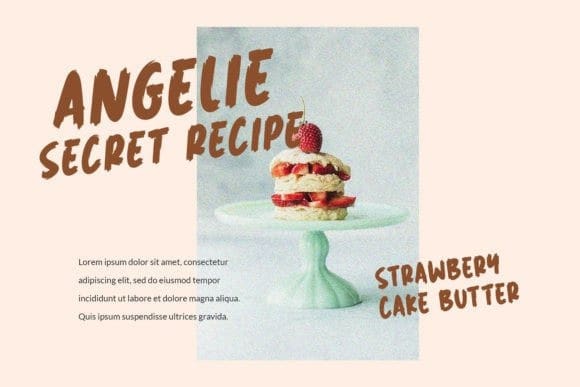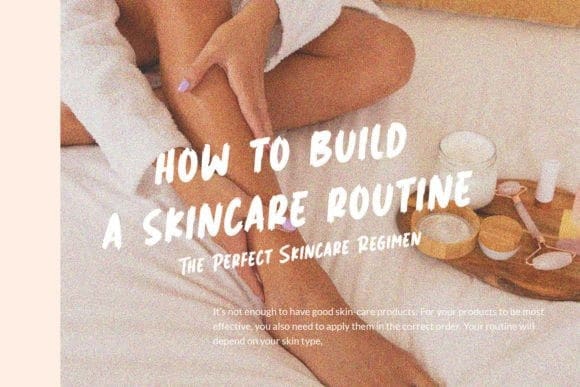
Lemon Dessert Font
Lemon Dessert Font – natural marker font look handwritten notes with lowercase. we keep this font looks natural, catchy and easy to use. We make in 2 type in reguler and italic.